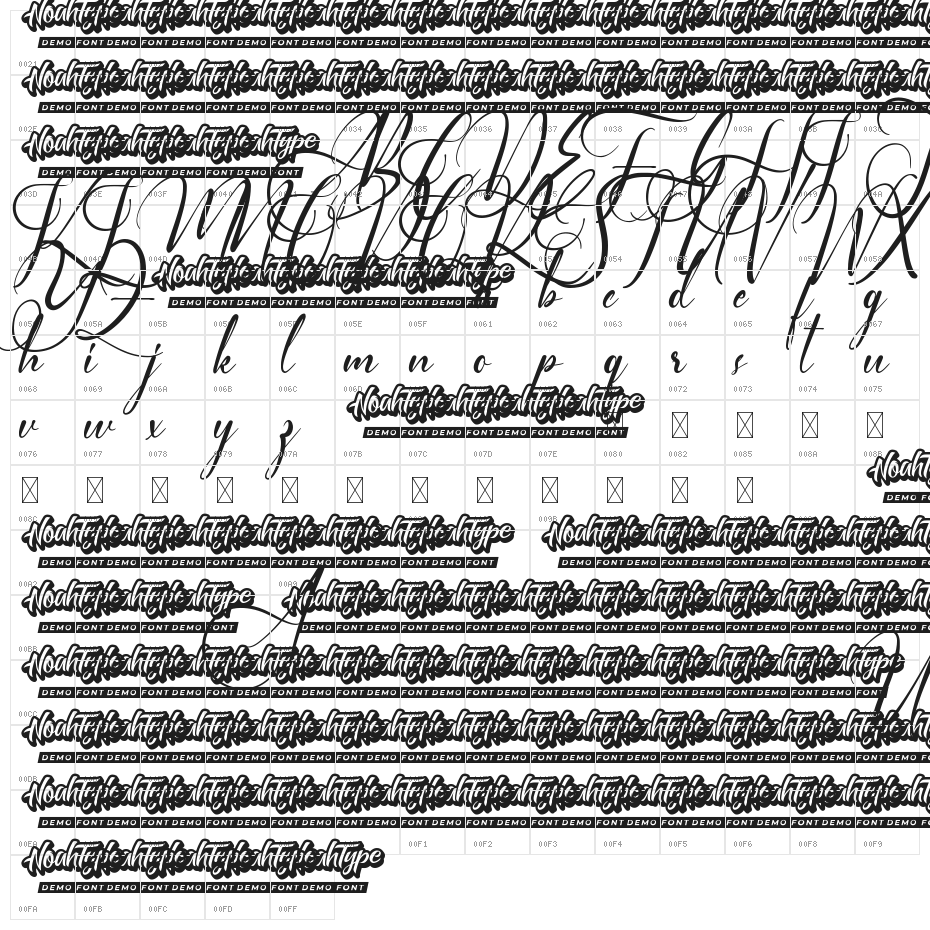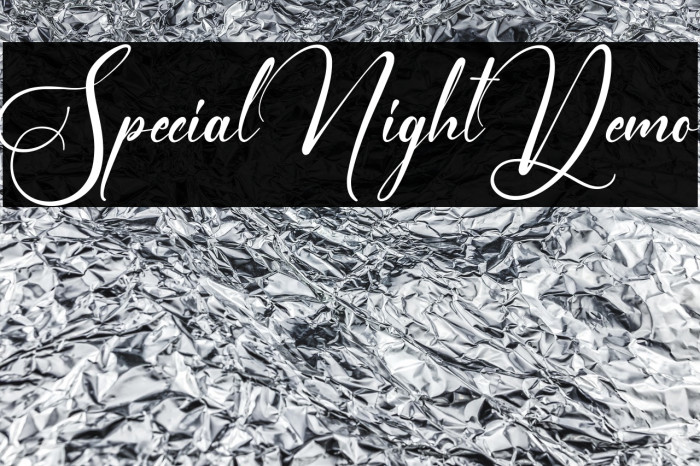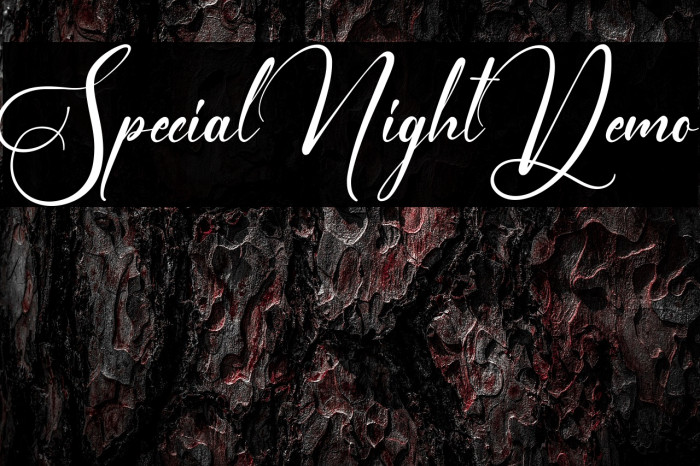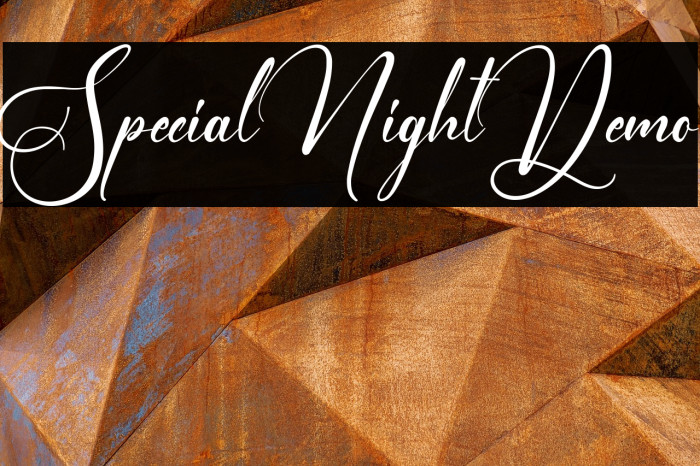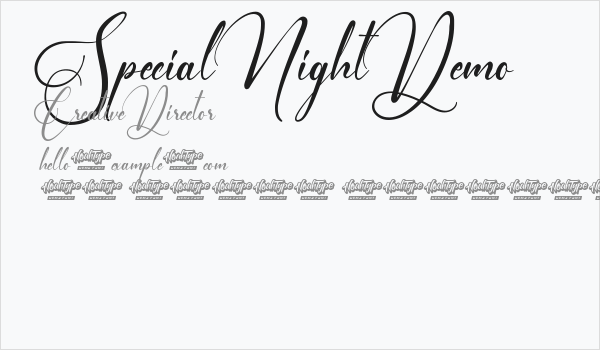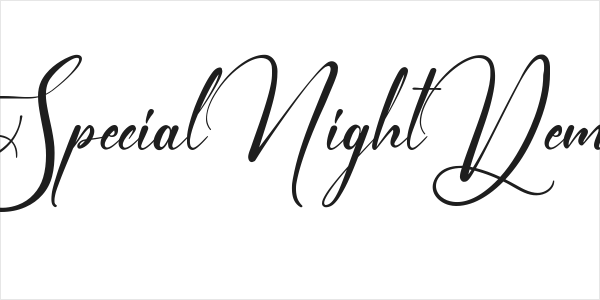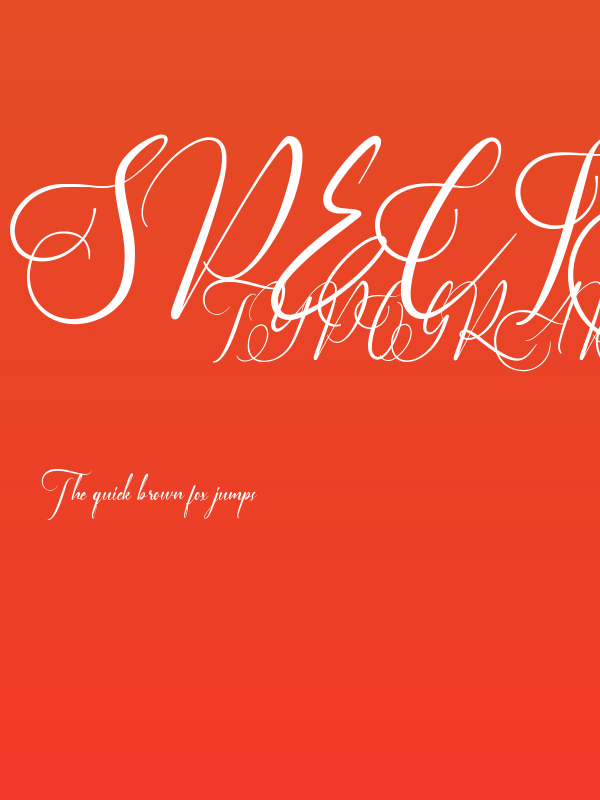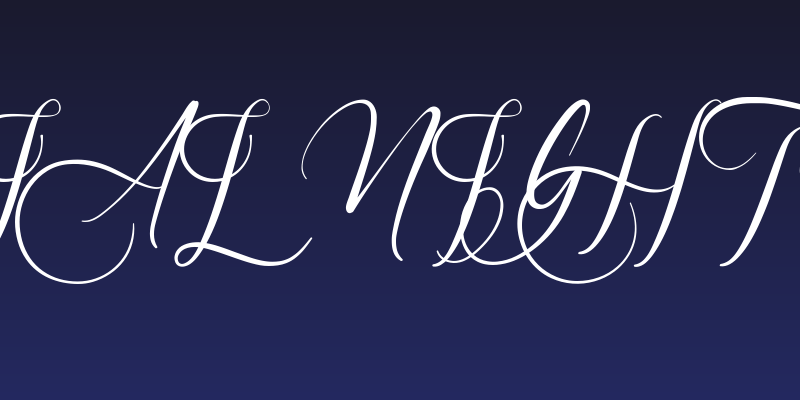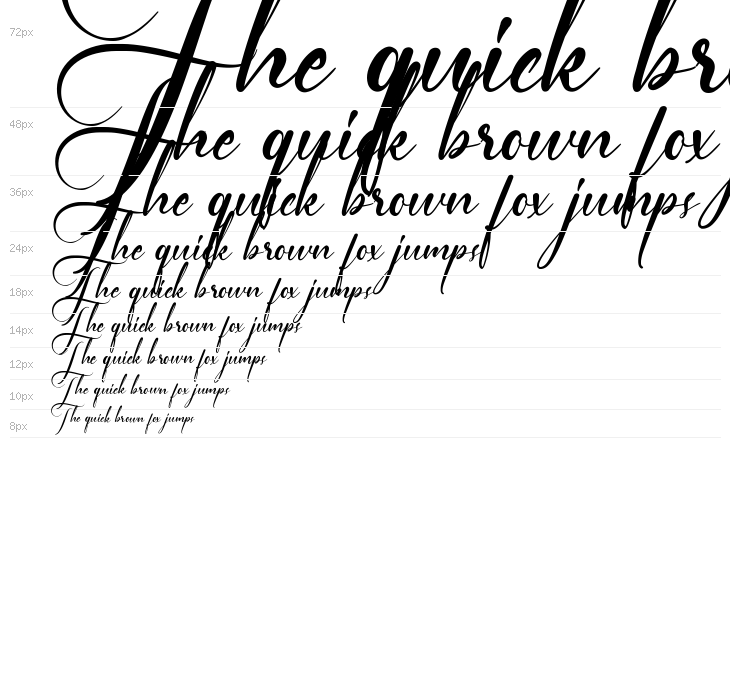
Special Night Demo Font
Special Night Demo Description
This font features an elegant and flowing script style, characterized by its intricate and graceful curves. The uppercase letters exhibit a sophisticated flair with extended loops and swashes, while the lowercase letters maintain a smooth and connected appearance. The overall design exudes a sense of luxury and refinement, making it ideal for formal invitations and high-end branding. The font's strokes vary in thickness, adding a dynamic and artistic touch to the text. Its decorative nature is complemented by a balanced contrast, ensuring readability while maintaining its ornate aesthetic.
| Overall Style | Elegant, Decorative |
| Use Case | Invitations, Branding, Stationery |
| Proposed Projects | Ideal for wedding invitations, luxury branding, and elegant stationery. |